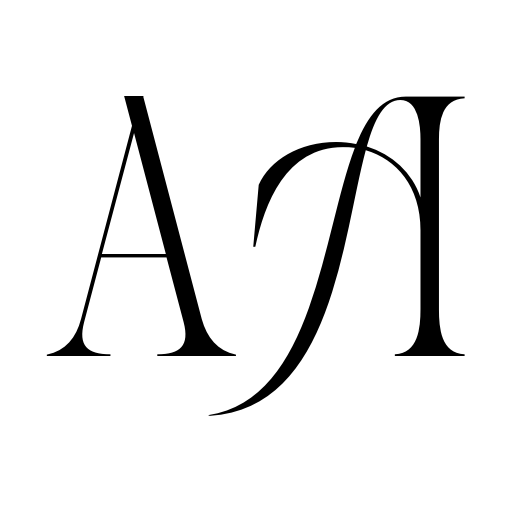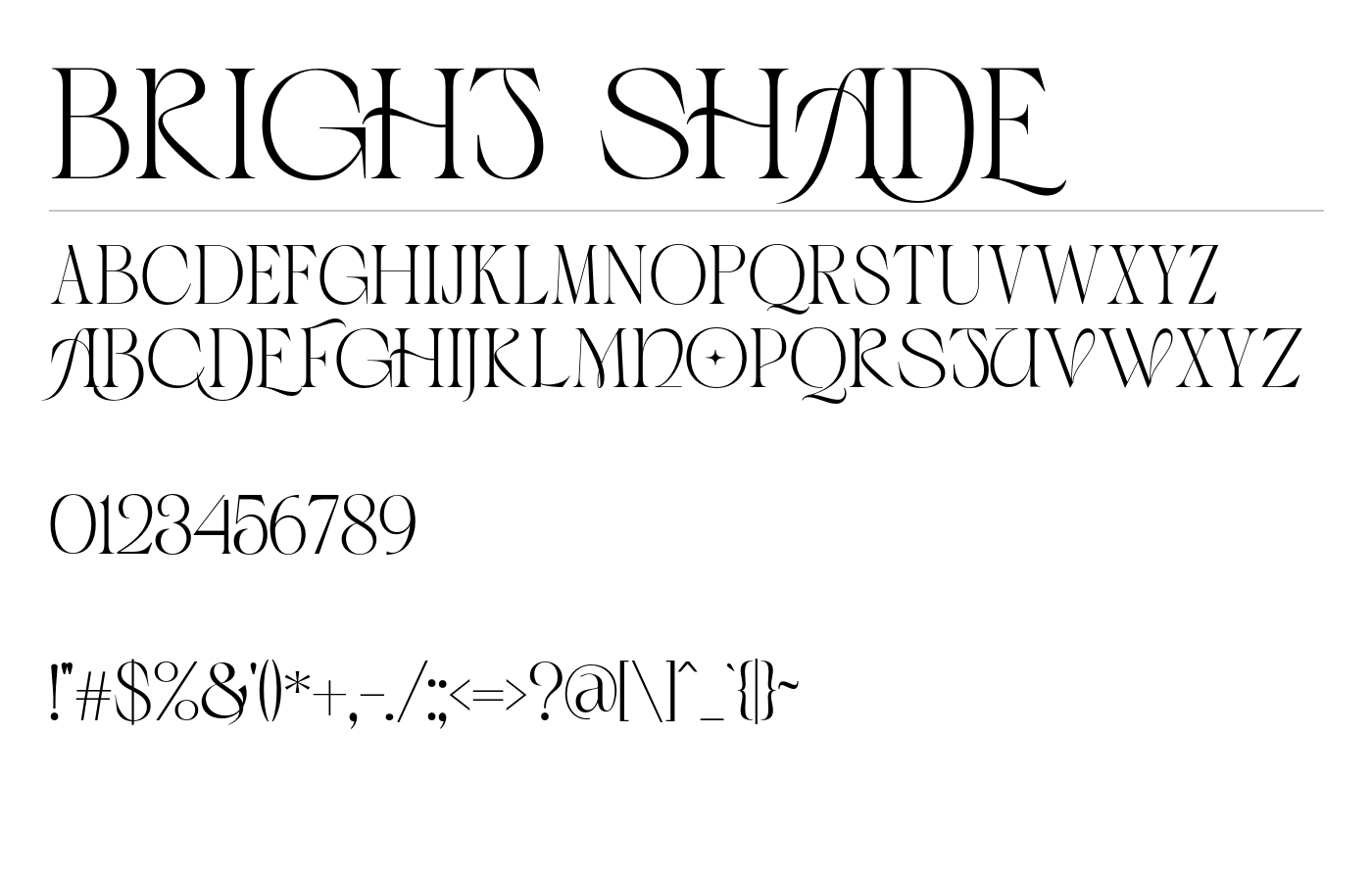
Bright Shade is an elegant serif font with a modern twist, featuring high contrast between thick and thin strokes and graceful, flowing curves that add a distinctive artistic flair. Its tall, slender letterforms and unique ornamental details make it ideal for luxury branding, fashion headlines, and sophisticated editorial design where a touch of refined creativity is desired. This font captures a blend of classic beauty and contemporary style, perfect for making bold, stylish statements.
| Font family | Bright shade Font |
| Designer | Toni Setiawan |